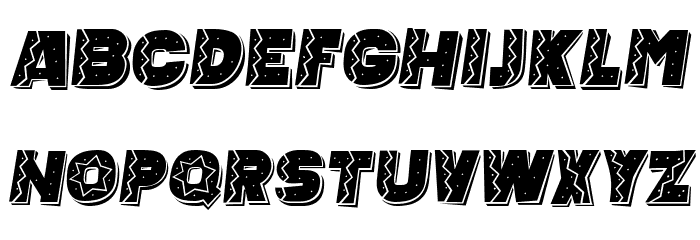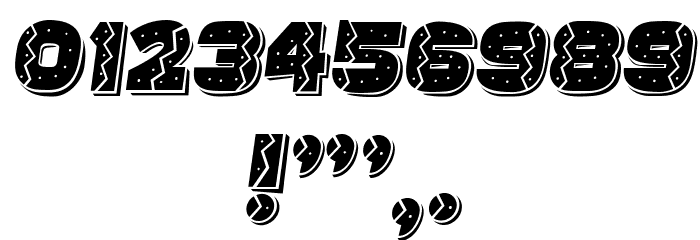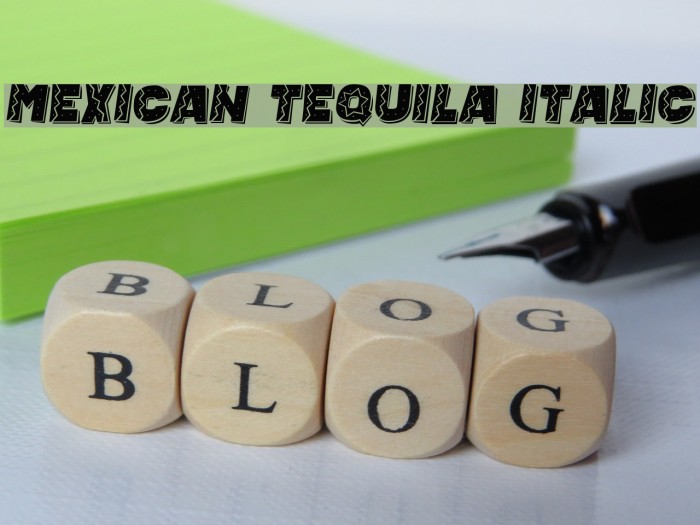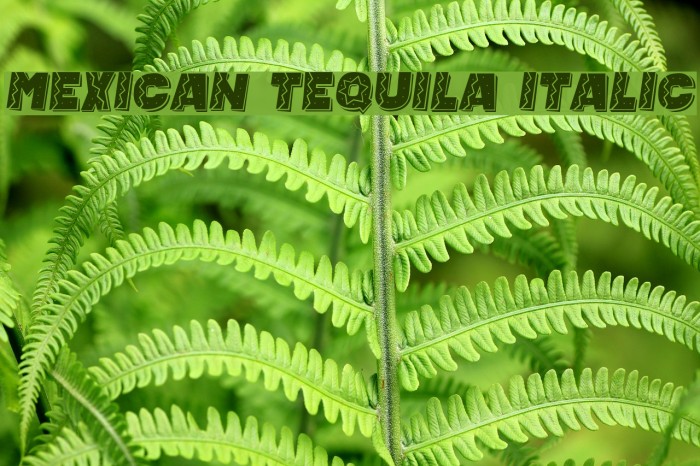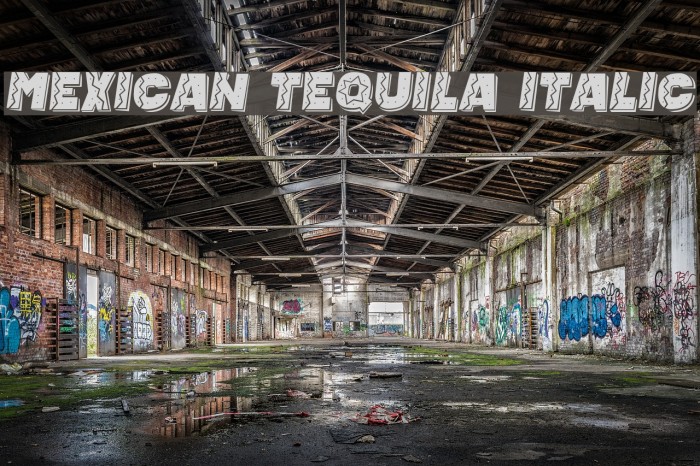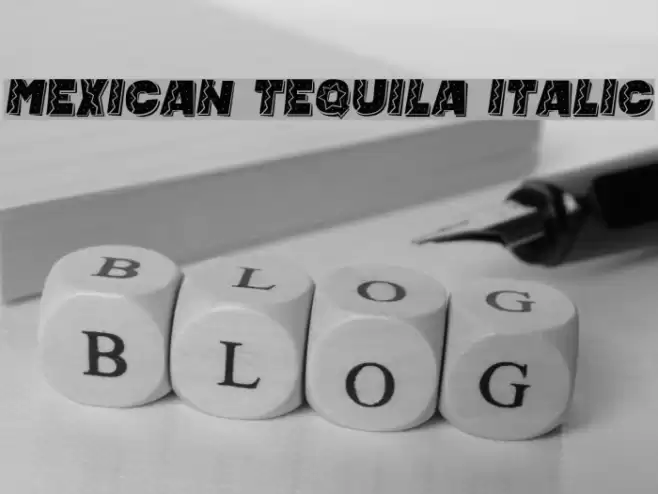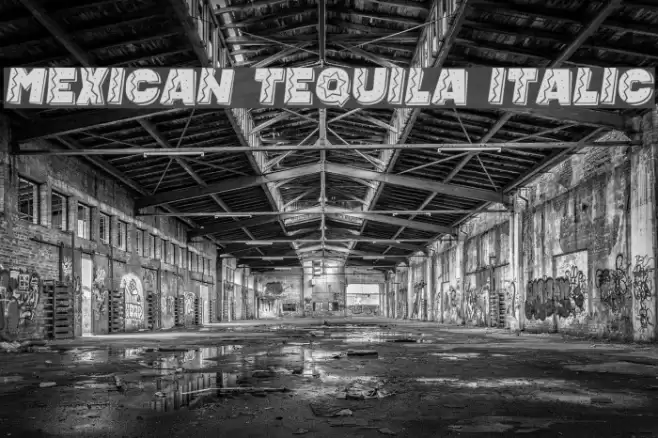
Mexican Tequila Italic Font
This bold and decorative font features a unique, playful style with a distinct Mexican flair. The characters are heavily stylized with intricate patterns and bold outlines, giving them a festive and lively appearance. The font is designed with a strong emphasis on geometric shapes and symmetry, which adds to its eye-catching appeal. The italicized slant of the letters enhances the dynamic and energetic feel, making it perfect for projects that require a touch of excitement and cultural richness. The font's boldness and decorative elements make it stand out, ensuring that any text set in this style will capture attention.
A bold, decorative font with a Mexican-inspired, playful style and italicized slant.
- Proposed Projects: Ideal for festive event posters, cultural festival branding, themed restaurant menus, and eye-catching headlines.